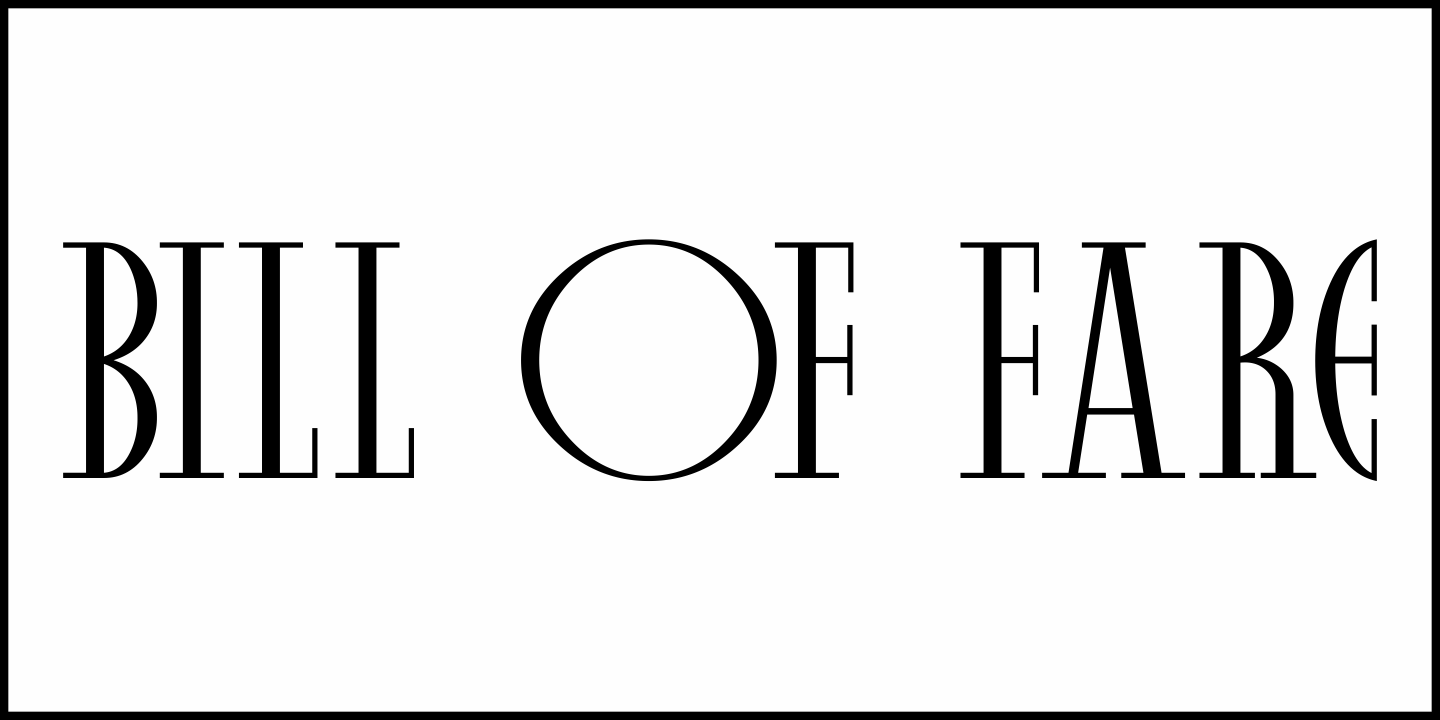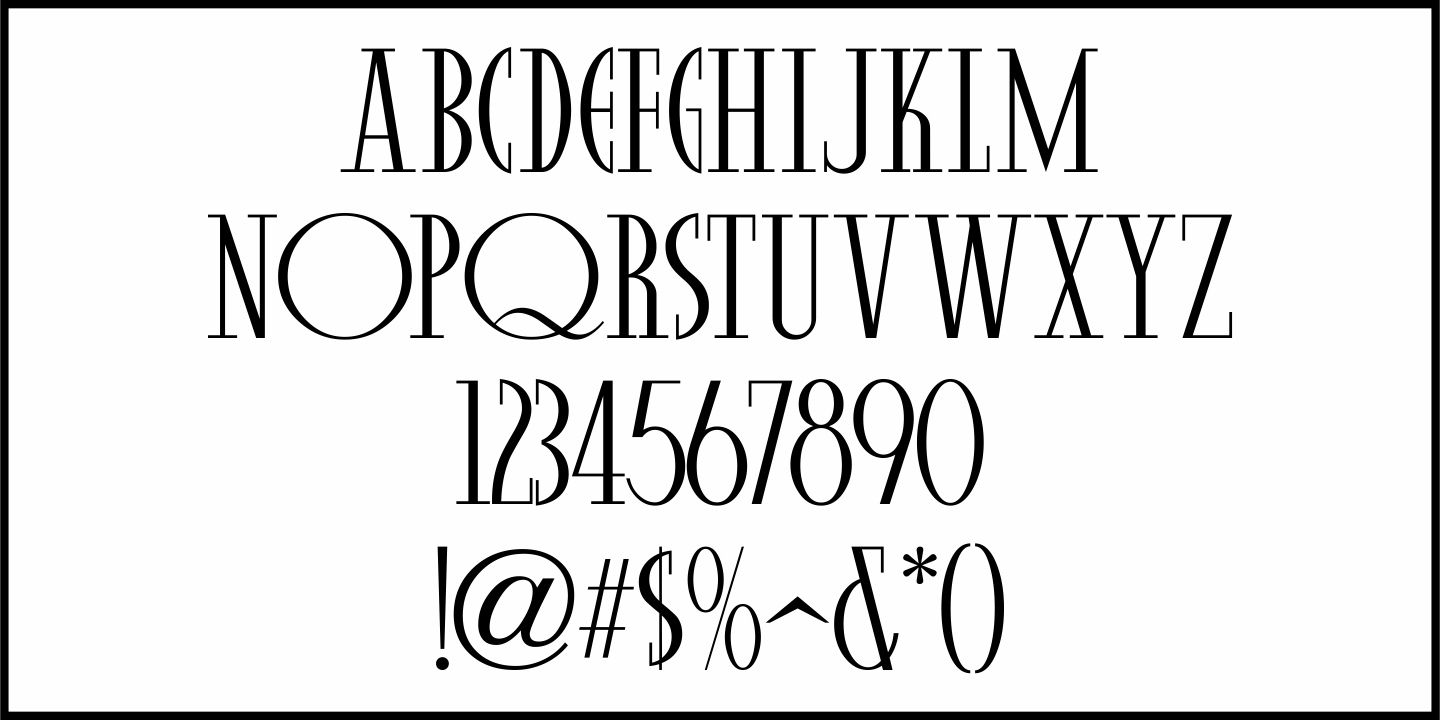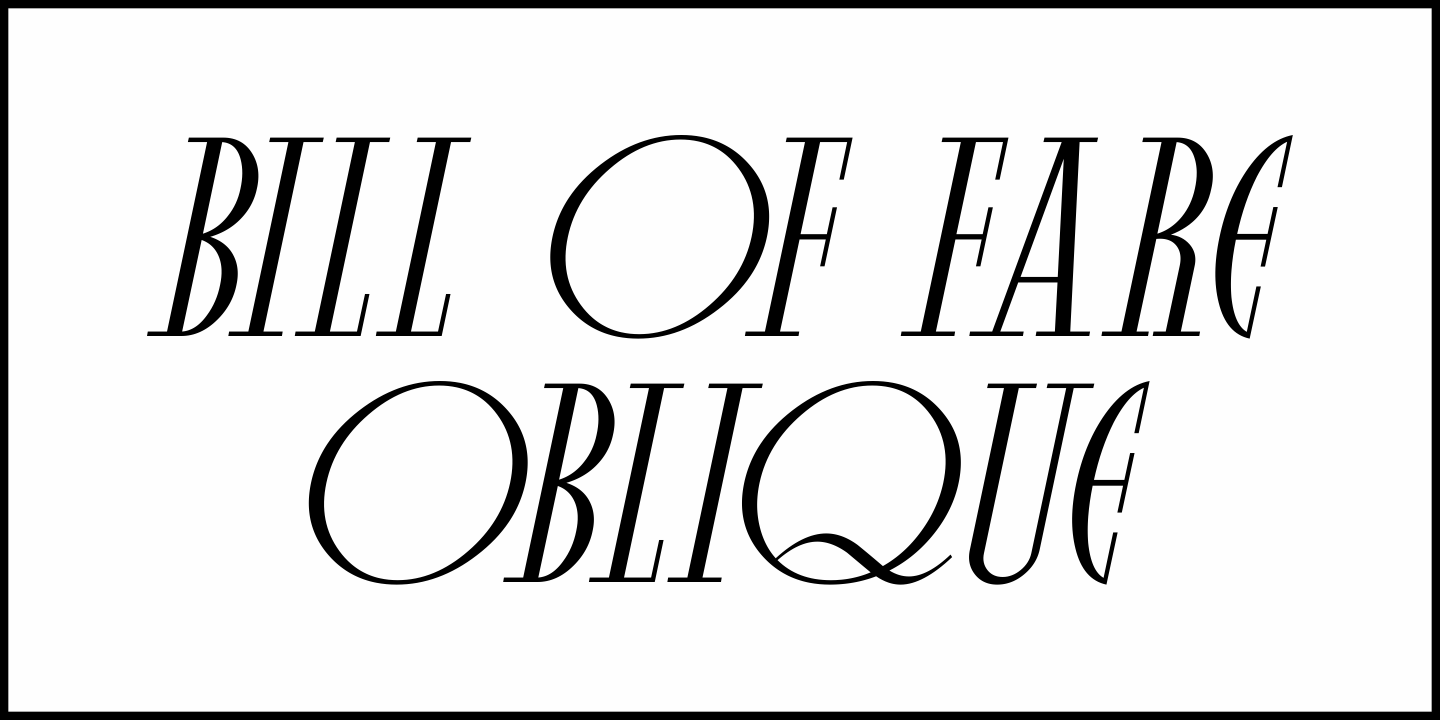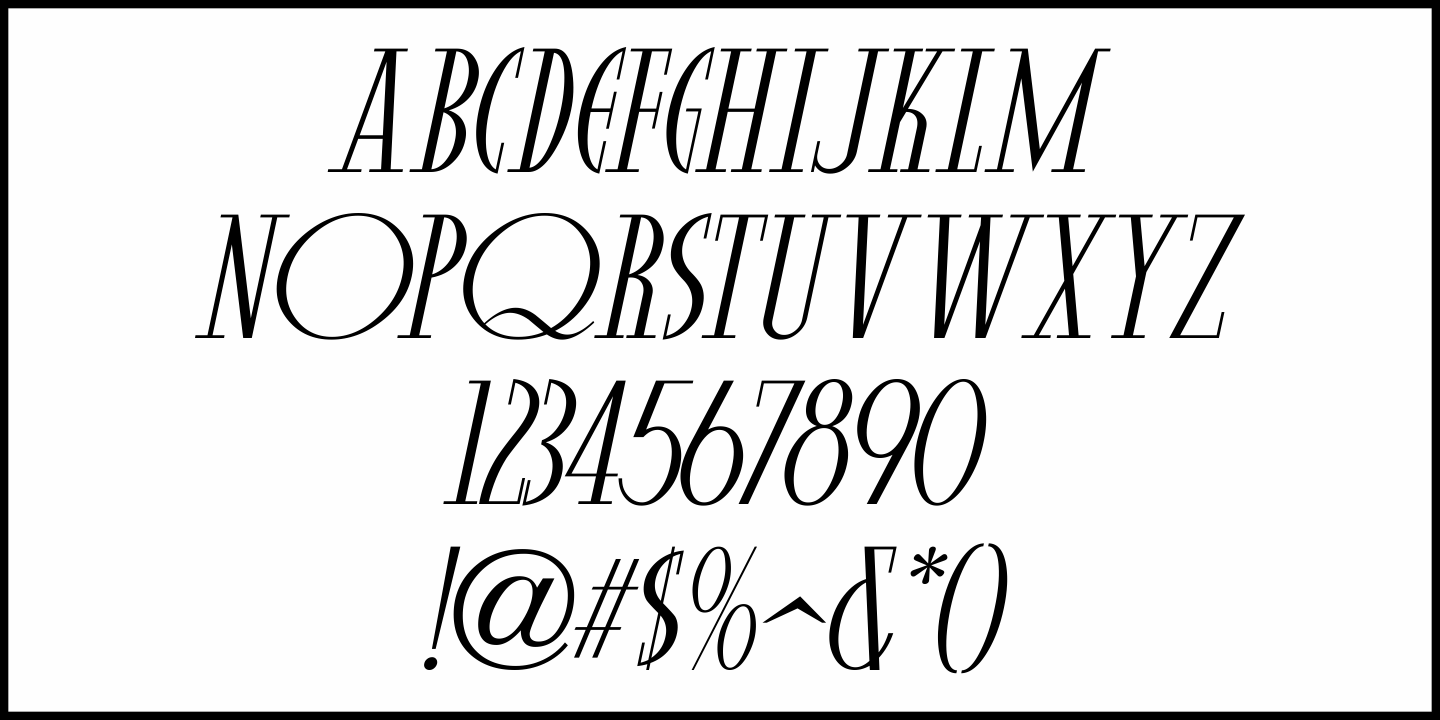
Bill of Fare
A 1942 menu cover for the restaurant at the Biltmore Hotel in Los Angeles features its name in a stylized Art Deco serif design.
This is has been turned into the digital typeface Bill of Fare JNL, and is available in both regular and oblique versions.